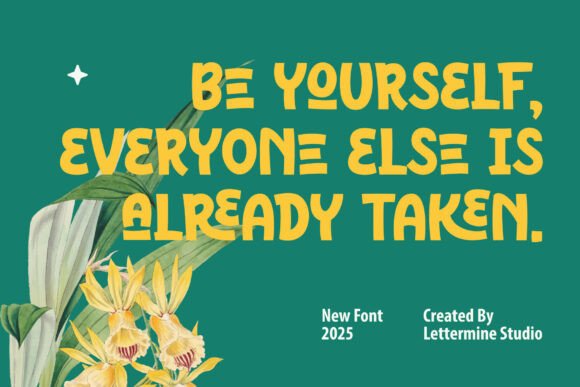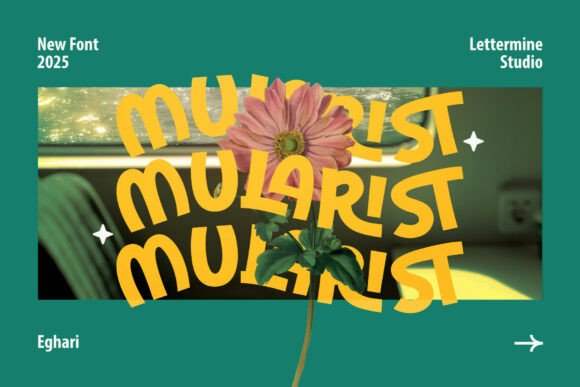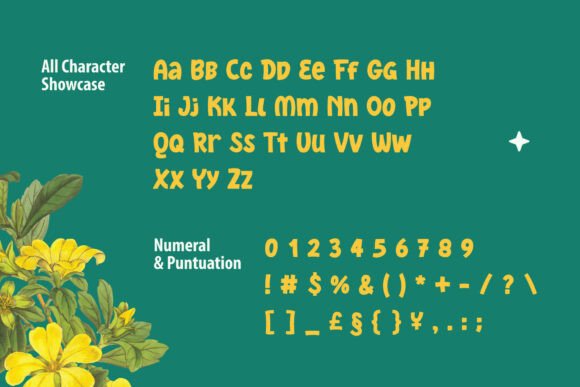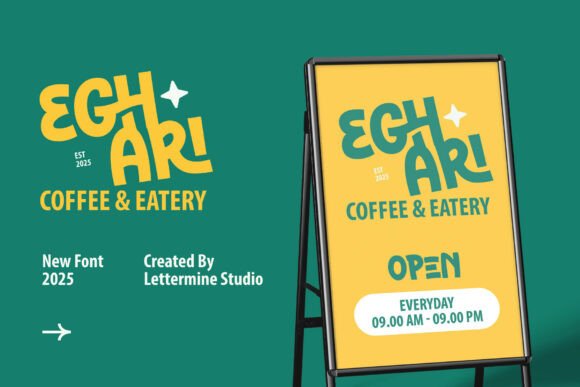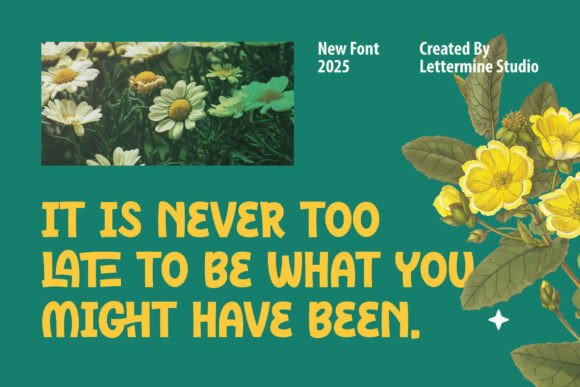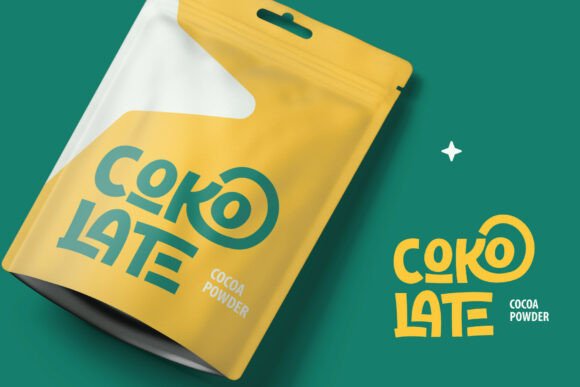
Eghari Font: The Ultimate Display Font for Fun and Creativity
Are you tired of using the same old fonts for your designs? Look no further than Eghari, a bold and energetic display font that’s packed with fun and charm. With its chunky curves and quirky letterforms, Eghari is the perfect typeface for designers who want to grab attention and spark joy in their work.
What Makes Eghari Special?
Eghari is more than just a font – it’s a statement piece. Its unique design makes it perfect for a wide range of applications, from digital packaging mockups to educational designs, playful branding, social media content, and cheerful promotional materials. Whether you’re working on a kids-themed project, creating eye-catching poster titles, or crafting bold graphic layouts, Eghari brings personality and creativity to every letter.
Key Features of Eghari Font
- Bold and Energetic: Eghari is a display font that’s designed to make a statement. Its bold and energetic design makes it perfect for headlines, titles, and other attention-grabbing elements.
- Chunky Curves and Quirky Letterforms: Eghari’s unique design features chunky curves and quirky letterforms that add a touch of fun and whimsy to any design.
- Fun Alternates and Ligatures: Eghari comes with a range of fun alternates and ligatures that allow you to add even more personality to your designs.
- Full Multilingual Support: Eghari supports a wide range of languages, making it a great choice for designers who work with international clients or want to create designs that appeal to a global audience.
Eghari is a versatile font that can be used in a wide range of design applications. Here are some ideas to get you started:
- Kids-Themed Projects: Eghari’s fun and playful design makes it perfect for kids-themed projects, such as children’s books, educational materials, and kids’ party invitations.
- Digital Packaging Mockups: Eghari’s bold and energetic design makes it perfect for digital packaging mockups, such as product labels, packaging design, and branding materials.
- Educational Designs: Eghari’s clear and easy-to-read design makes it perfect for educational designs, such as textbooks, workbooks, and educational posters.
- Playful Branding: Eghari’s unique design makes it perfect for playful branding, such as logos, business cards, and letterheads.
- Social Media Content: Eghari’s bold and attention-grabbing design makes it perfect for social media content, such as Facebook posts, Instagram captions, and Twitter headers.
Why Choose Eghari Font?
So why choose Eghari font for your next design project? Here are just a few reasons:
- Unique Design: Eghari’s unique design sets it apart from other fonts, making it perfect for designers who want to stand out from the crowd.
- Versatility: Eghari can be used in a wide range of design applications, making it a great addition to any designer’s font library.
- Fun and Playful: Eghari’s fun and playful design makes it perfect for designers who want to add a touch of whimsy to their work.
In conclusion, Eghari font is a bold and energetic display font that’s packed with fun and charm. With its chunky curves and quirky letterforms, Eghari is the perfect typeface for designers who want to grab attention and spark joy in their work. Whether you’re working on a kids-themed project, creating eye-catching poster titles, or crafting bold graphic layouts, Eghari brings personality and creativity to every letter. So why not give Eghari a try and see how it can elevate your designs?